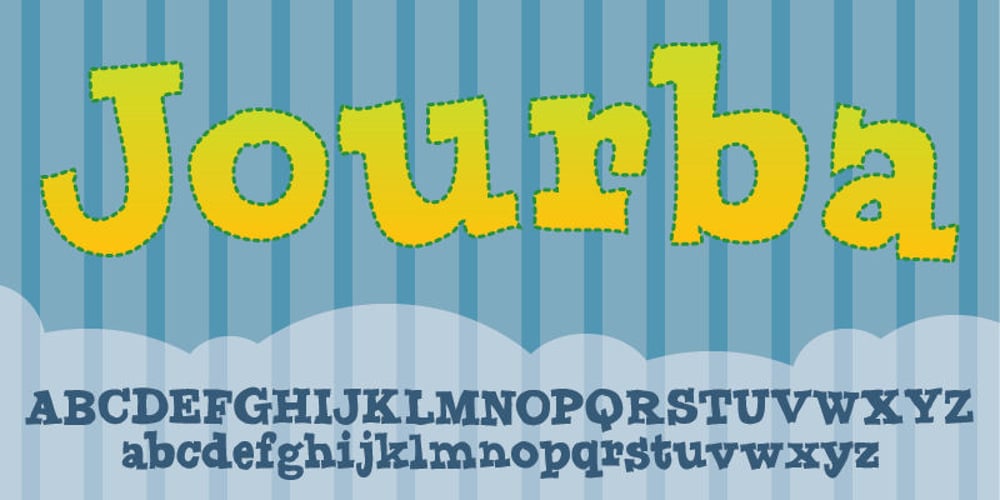
Jourba
Jourba font
Jourba Font Family was designed by Jakob Fischer and published by PizzaDude.dk. Jourba contains 1 styles and family package options. Jourba is my quick scribbled serif font. Here and there you can notice inkblobs and obvious clumbsy lines. Comes with alternate upper- and lowercase along with a lot of ligatures of the most used typical letter combinations! You will need to use OpenType supporting applications to use the ligatures.